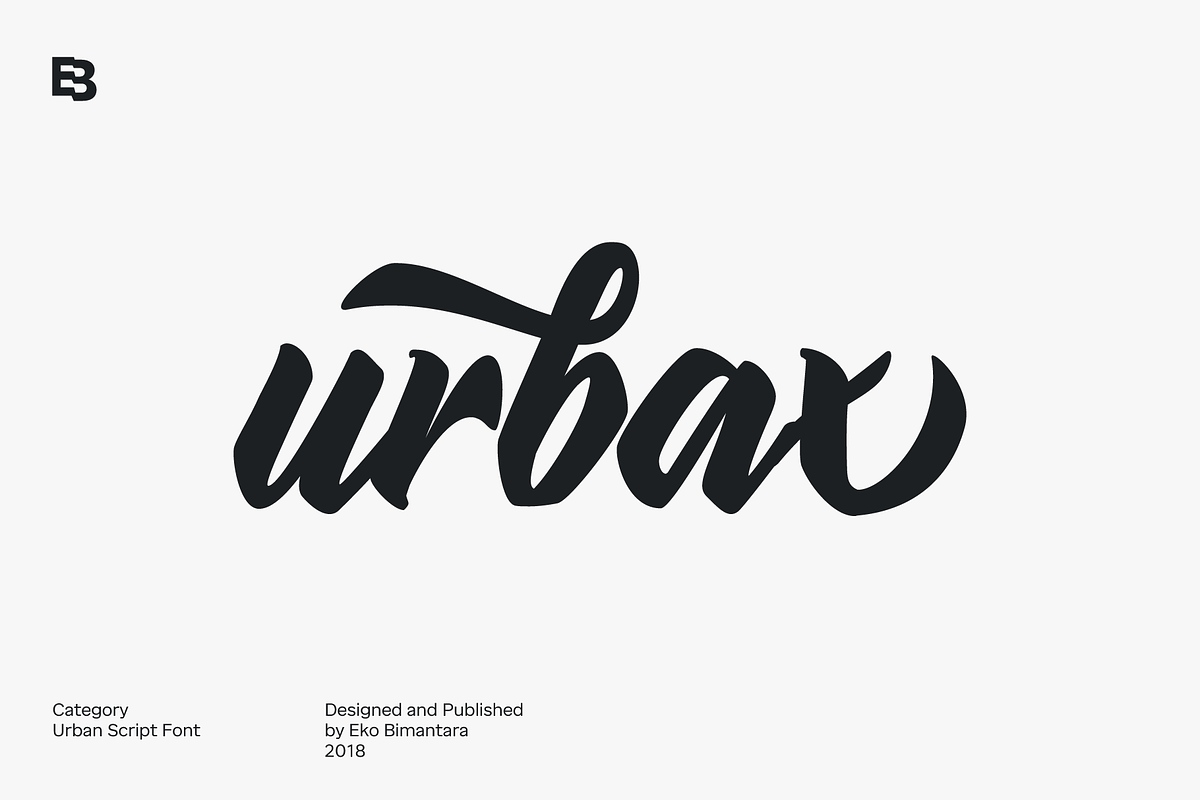
Urbax Script Font Free Download is a modern and edgy script typeface that blends urban street style with elegant handwritten elements. With its fluid curves and dynamic strokes, Urbax is perfect for logos, branding, event promotions, streetwear designs, and social media graphics that need a bold, stylish touch.
This font offers a creative, sophisticated vibe while maintaining an energetic feel, making it ideal for projects that aim to make an impact. Whether you're crafting a logo for a fashion brand, a music event poster, or an artistic social media post, Urbax adds a cool, personal touch to your typography.